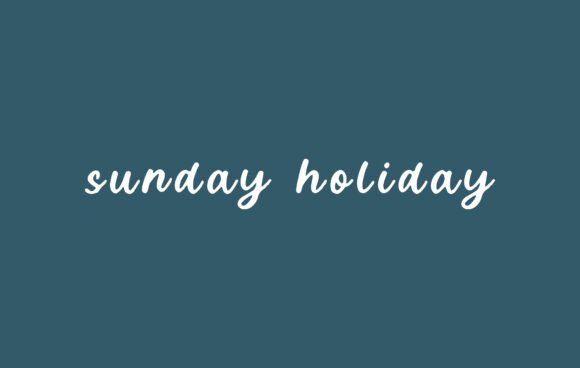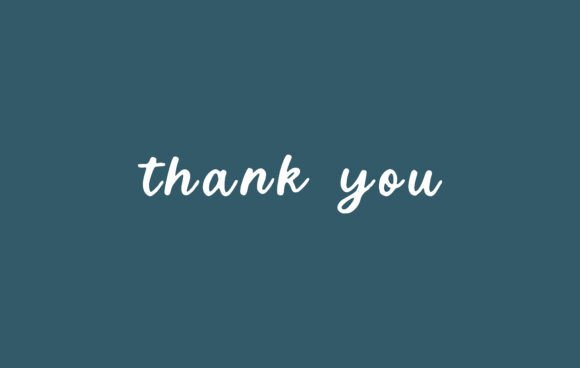
Introducing Foxglove Font: The Perfect Addition to Your Creative Arsenal
Are you a designer, crafty enthusiast, or simply someone who appreciates beautiful typography? Look no further than the Foxglove font, an authentic handwritten font that exudes a romantic touch. This expertly designed font is poised to become a true favorite among creatives, offering endless possibilities for elevating your projects to new heights.
The Charm of Foxglove Font
Foxglove font boasts a unique, handcrafted quality that sets it apart from more generic fonts. Its romantic undertones evoke a sense of whimsy and sophistication, making it an excellent choice for a wide range of applications. Whether you’re working on a wedding invitation, social media graphics, or a magazine headline, Foxglove font is sure to add a touch of elegance and refinement.
Key Features of Foxglove Font
• Legibility: Foxglove font is designed to be easy to read, making it perfect for both title and body text. Its clear, flowing script ensures that your message gets across with style and clarity.
• Versatility: With its unique blend of classic and modern elements, Foxglove font can be used in a variety of contexts, from traditional print materials to digital platforms.
• Authentic Handwritten Feel: Foxglove font’s handcrafted nature gives it a distinctive, organic feel that’s sure to resonate with audiences.
The Foxglove font’s versatility is one of its most compelling features. Here are just a few examples of the many design possibilities it offers:
• Magazine Headlines: Add a touch of sophistication to your magazine or newspaper headlines with Foxglove font’s elegant, refined script.
• Social Media Graphics: Elevate your social media presence with eye-catching graphics featuring Foxglove font. Perfect for creating engaging posts, stories, and ads.
• Branding: Establish your brand’s unique identity with Foxglove font. Its distinctive style ensures that your brand stands out from the crowd.
• Wedding Invitations: Add a romantic touch to your wedding invitations, save-the-dates, and other stationery with Foxglove font’s whimsical, elegant script.
• Cards and Stationery: Create beautiful, one-of-a-kind cards and stationery with Foxglove font. Perfect for birthdays, anniversaries, and other special occasions.
Why Choose Foxglove Font?
With so many fonts available, why choose Foxglove font? Here are just a few reasons why designers and crafters are falling in love with this beautiful font:
• Unique Style: Foxglove font’s distinctive, handcrafted style ensures that your designs stand out from the crowd.
• Ease of Use: Foxglove font is easy to read and works beautifully in a variety of contexts, making it a practical choice for designers and crafters.
• Emotional Connection: Foxglove font’s romantic undertones evoke a sense of whimsy and sophistication, creating an emotional connection with your audience.
In conclusion, Foxglove font is a beautiful, authentic handwritten font that’s sure to become a favorite among designers and crafters. Its unique blend of classic and modern elements, combined with its legibility and versatility, make it an excellent choice for a wide range of applications. Whether you’re working on a wedding invitation, social media graphics, or a magazine headline, Foxglove font is the perfect addition to your creative arsenal.